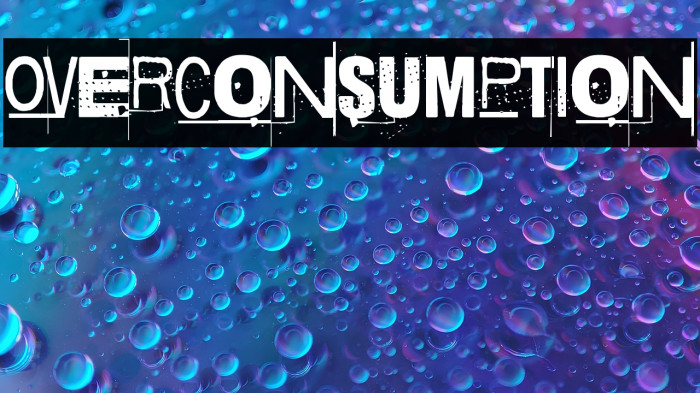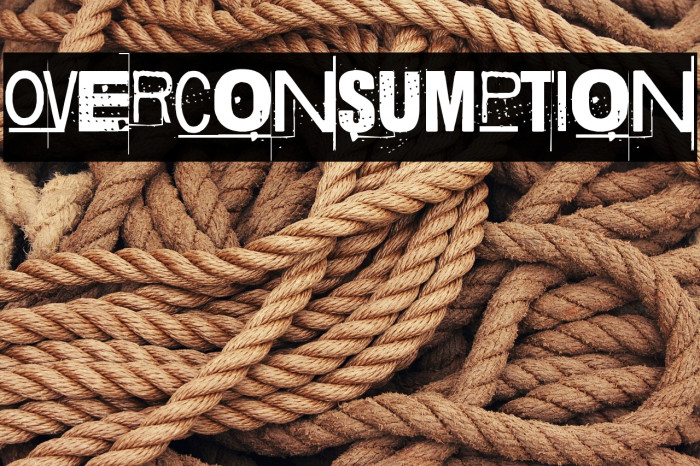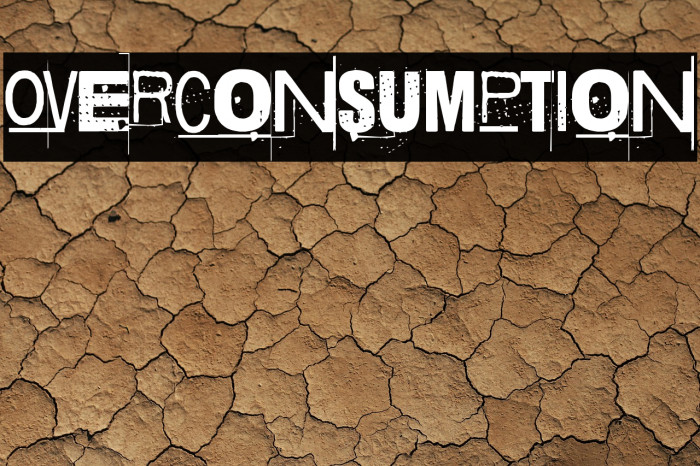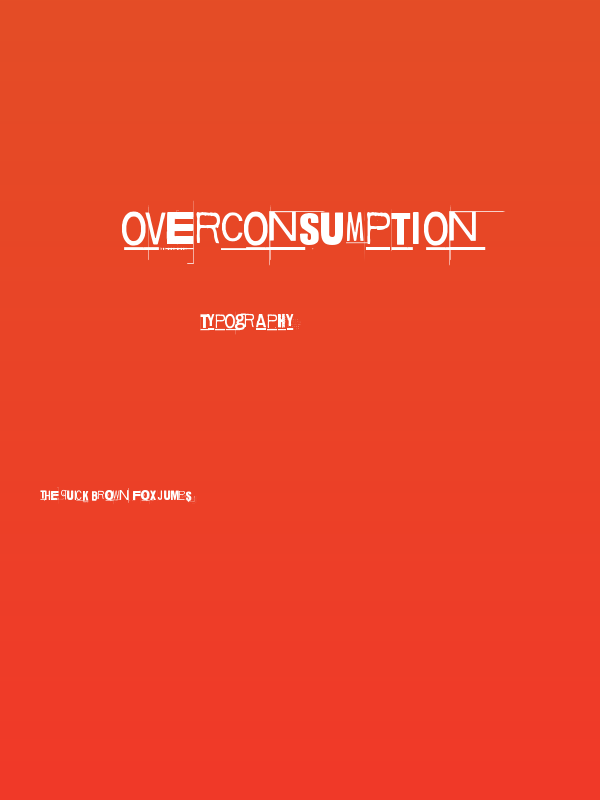
Overconsumption Font
✎ Distorted Eroded
Overconsumption Description
This font features a bold, distressed style with a mix of solid and fragmented characters, giving it a grunge and urban feel. The uppercase letters are prominent, with some characters appearing more eroded than others, adding to the chaotic aesthetic. The numbers and special characters follow the same distressed pattern, ensuring consistency across the typeface. The overall design is striking and unconventional, making it suitable for projects that require a bold statement.
| Categories | Distorted Eroded |
| Overall Style | Grunge, Urban, Distressed |
| Use Case | Headlines, Posters, Branding |
| Proposed Projects | Ideal for album covers, posters, streetwear branding, and any design needing an edgy, rebellious vibe. |